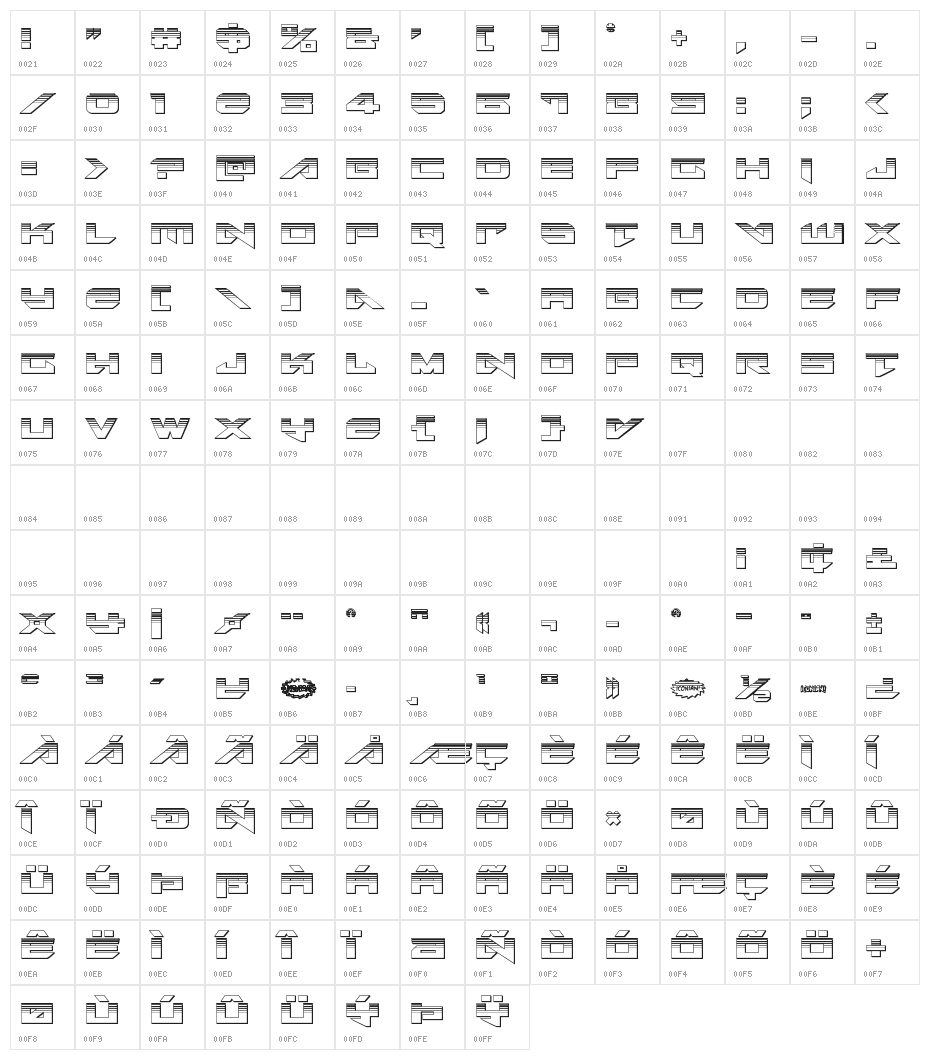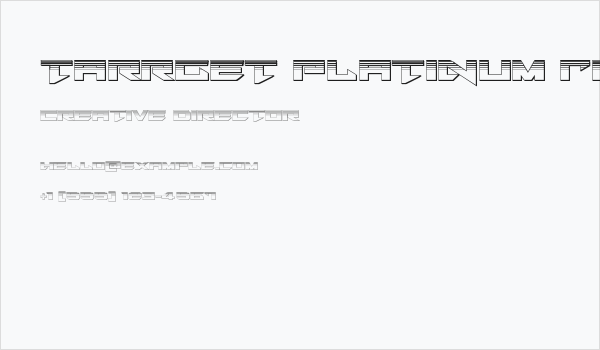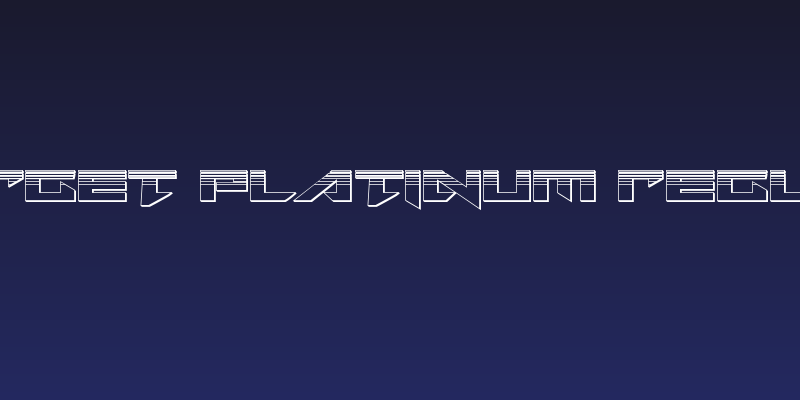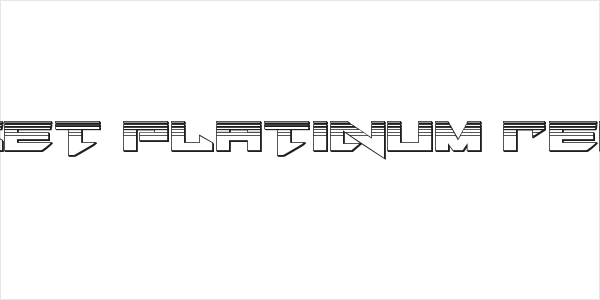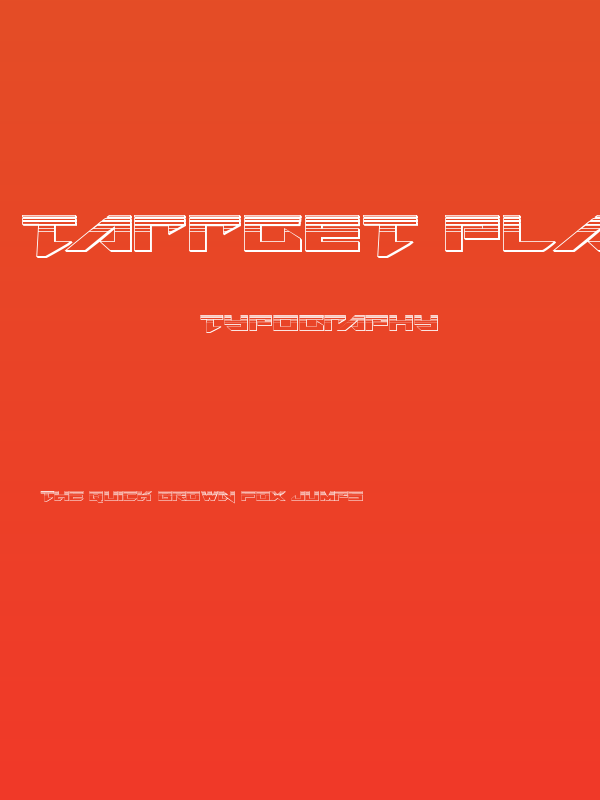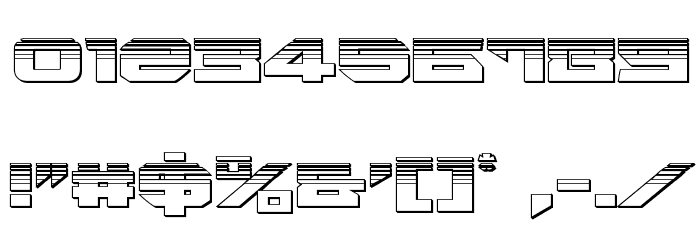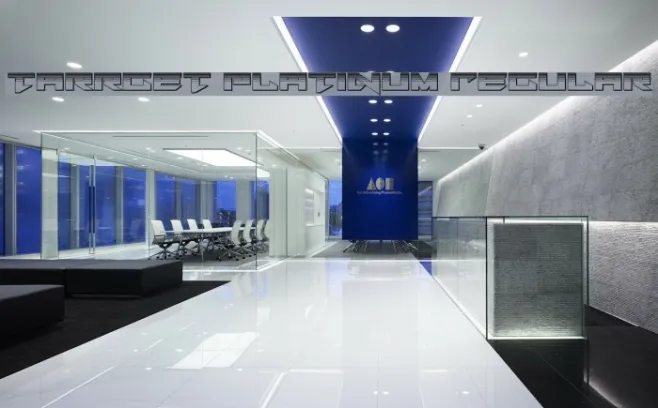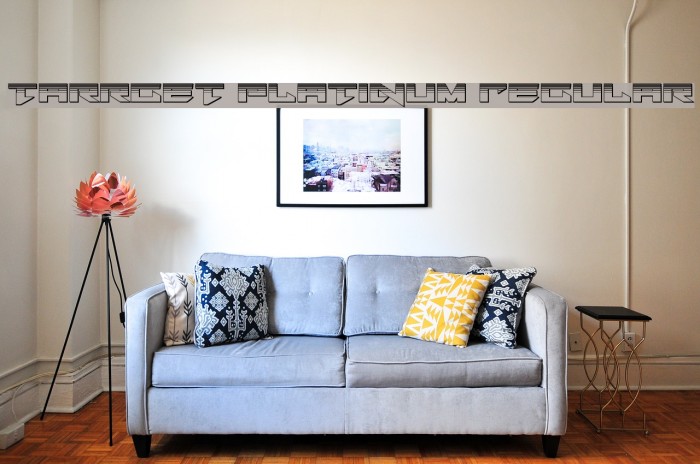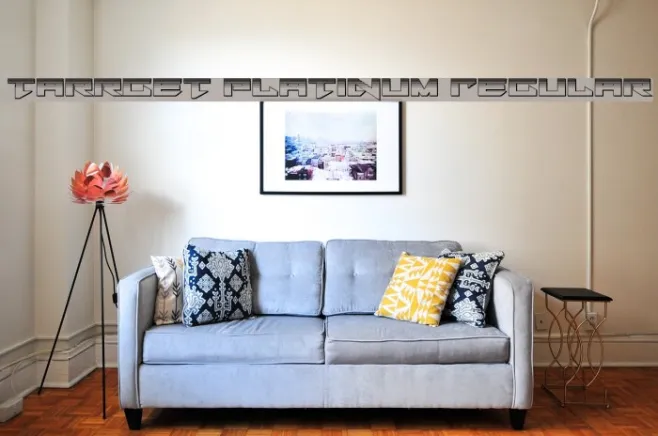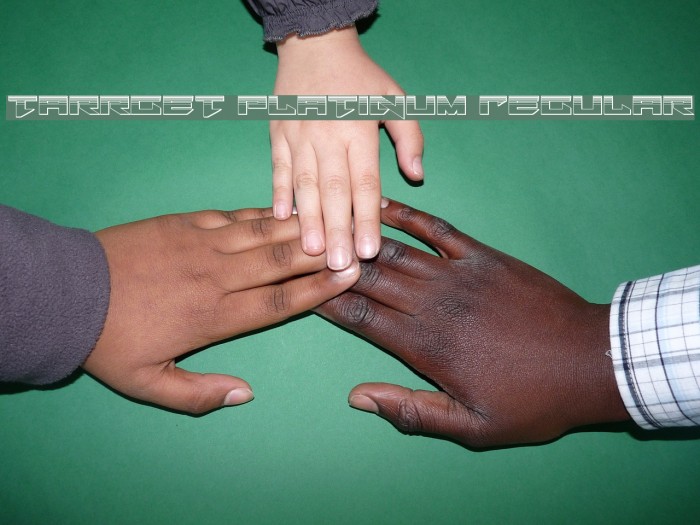
Tarrget Platinum Regular Font
Tarrget Platinum Regular Description
This font features a futuristic and geometric design with a strong emphasis on angular lines and sharp edges. The uppercase letters are bold and structured, creating a sense of modernity and innovation. The lowercase letters maintain the same angular style, ensuring consistency throughout the typeface. The numerals are distinct and easily readable, following the same geometric pattern. Special characters are uniquely designed to match the overall aesthetic, making this font suitable for projects that require a modern and tech-savvy appearance. The font's structure is clean and precise, with a medium contrast in stroke thickness, adding to its contemporary feel.
TARRGET-PLATINUM-REGULAR UPPERCASE
TARRGET-PLATINUM-REGULAR LOWERCASE
TARRGET-PLATINUM-REGULAR OTHER CHARS
| Proposed Projects | Ideal for technology branding, sci-fi themed designs, video game titles, and innovative product packaging. |